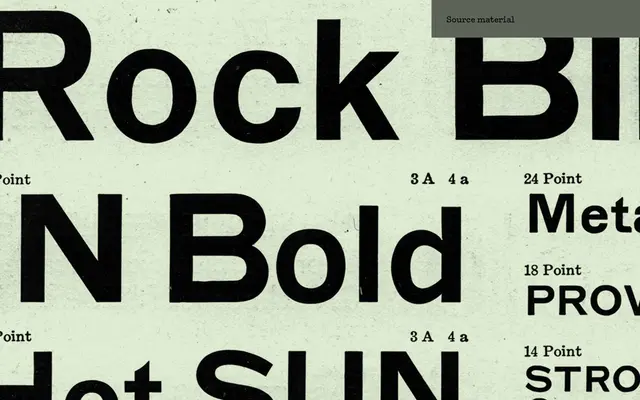
Microscopic
A duplexed grotesque revival of Gothic No. 3 from an 1908 Barnhart Brothers & Spindler specimen, built for legibility at small sizes on screen.
Based on Gothic No. 3 from an American type specimen of c. 1908, the design mixes square and soft forms with a mechanically constructed lowercase featuring distinctively pinched bowls on b, d, g, p and q. The family is duplexed, meaning all eight weights occupy identical widths, making it practical for UI work where text reflow must be avoided. An X Condensed subfamily extends the range for tighter settings.
Derived from Gothic No. 3, an early 20th-century American gothic typeface, placing it squarely in the grotesque tradition. The mixed square and soft shapes with mechanically constructed letterforms are characteristic of late 19th and early 20th century American gothics.